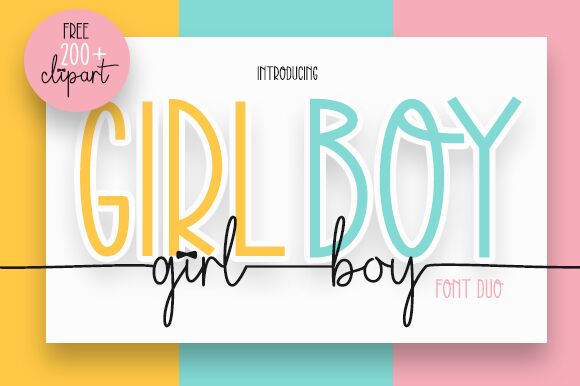
Girl Boy Display is the perfect font for fun and playful projects! Designed by Danar Nugroho, this comic-style display font features a light weight and extra-condensed width, giving it a unique and eye-catching appearance. Its condensed shape makes it ideal for headlines or titles that need to fit into tight spaces. Use Girl Boy Display on your next children's book cover, comic strip, or website header to add a touch of whimsy. With its bold yet playful style, this font can also be used for party invitations or greeting cards. Let Girl Boy Display add some fun to your next project!
Girl Boy Display